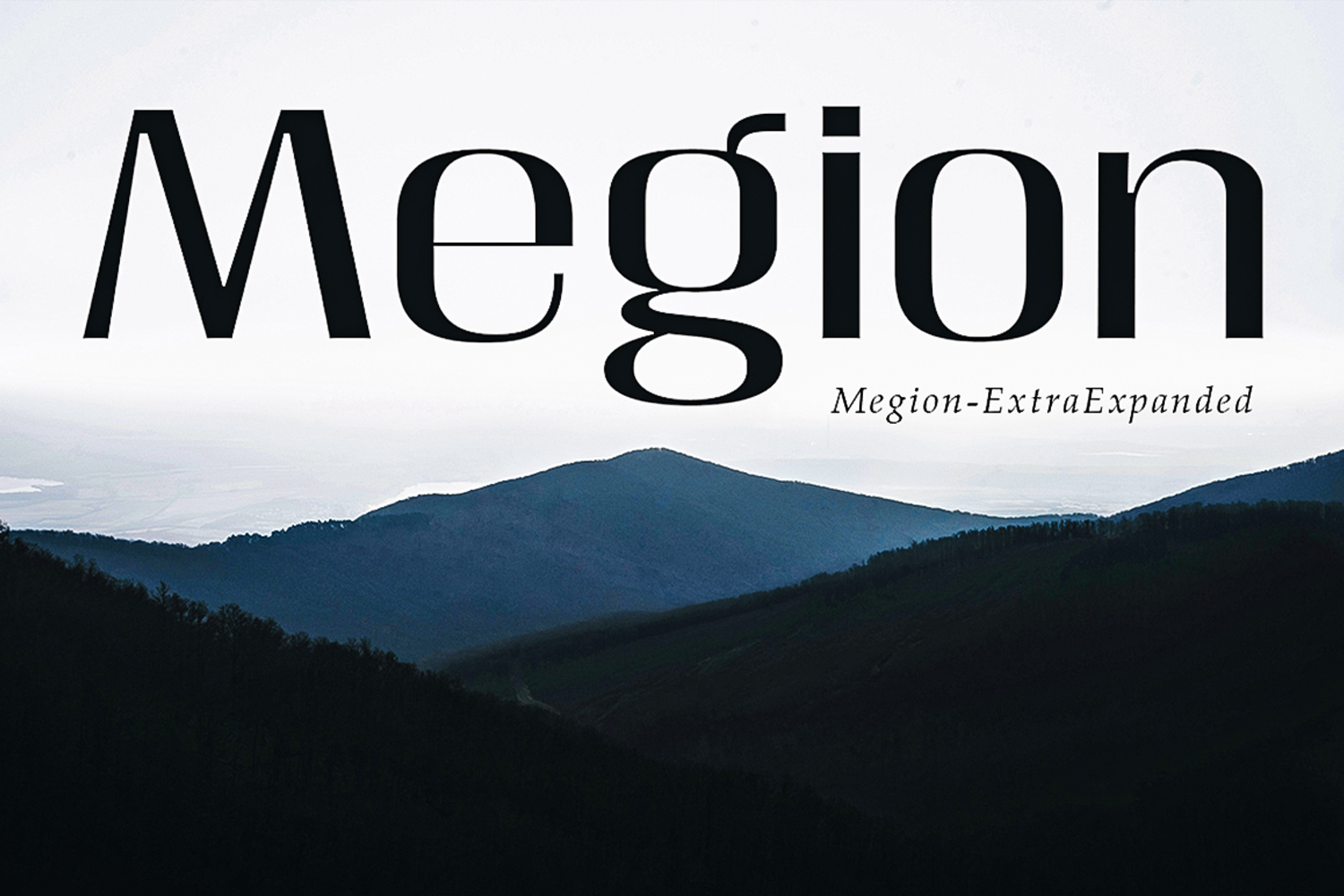
Megion
Megion-ExtraExpanded Italic
Megion-ExtraExpanded
Megion is an elegant, high-contrast display serif font crafted to bring a refined, editorial feel to modern branding, luxury packaging, and headline designs. With its beautifully balanced curves and distinctively wide proportions, it captures attention effortlessly while maintaining a sophisticated, high-end aesthetic across both digital and print media